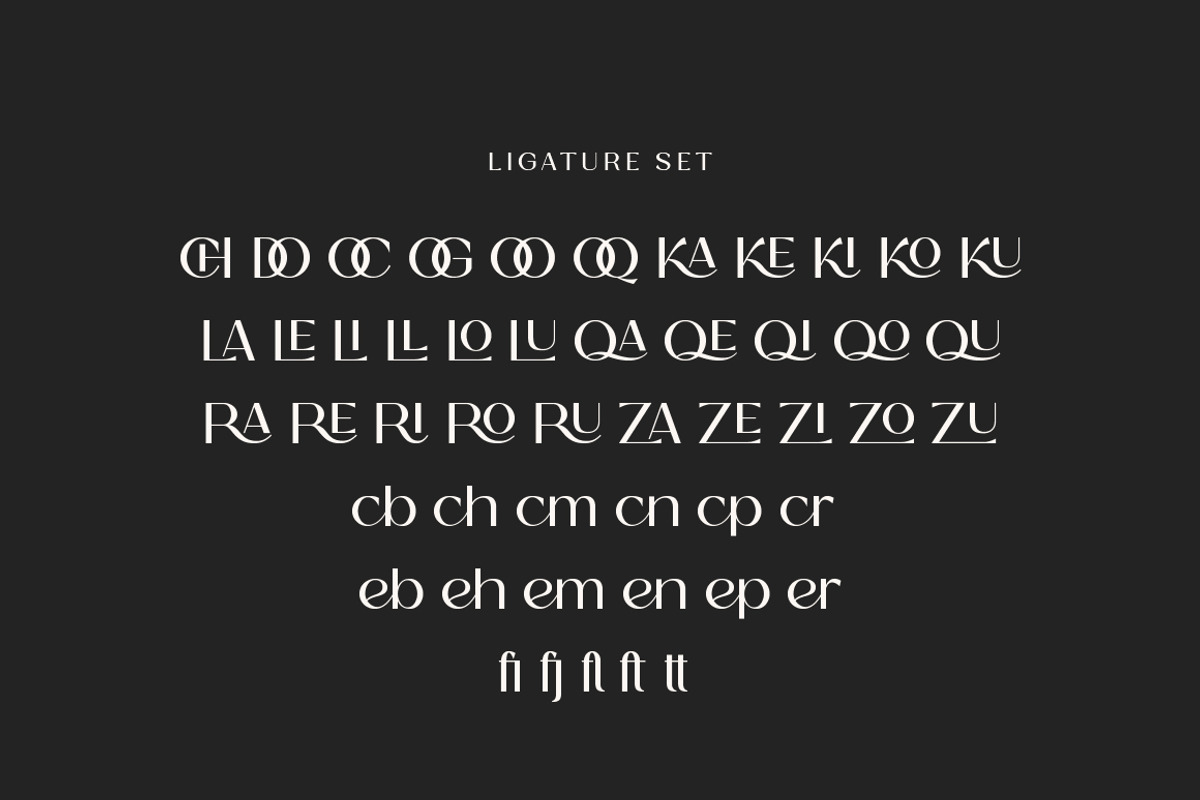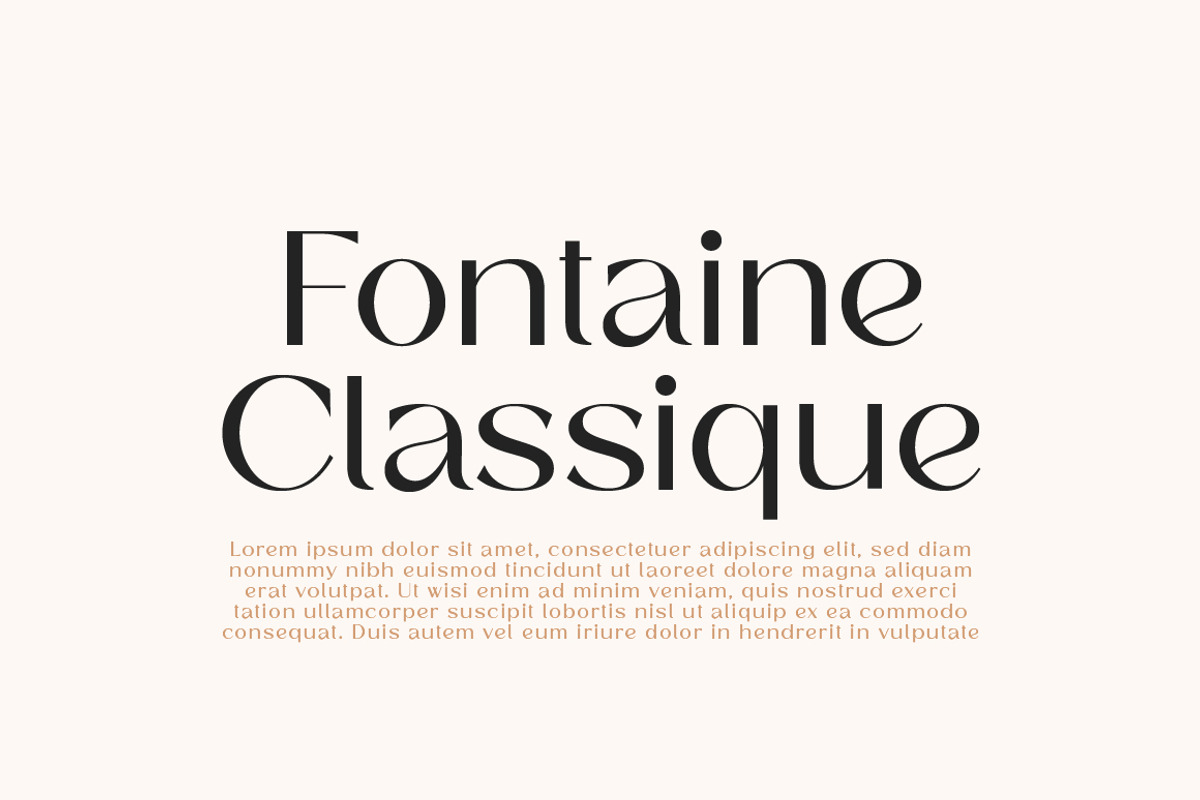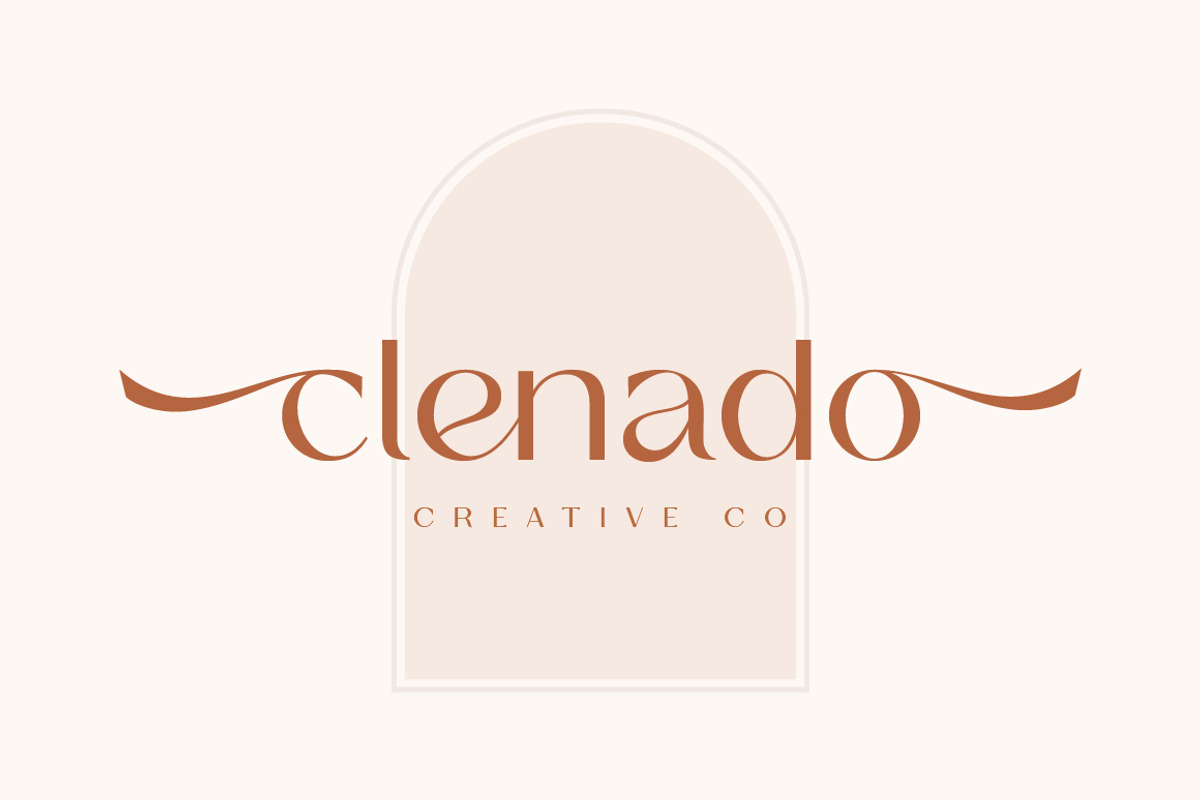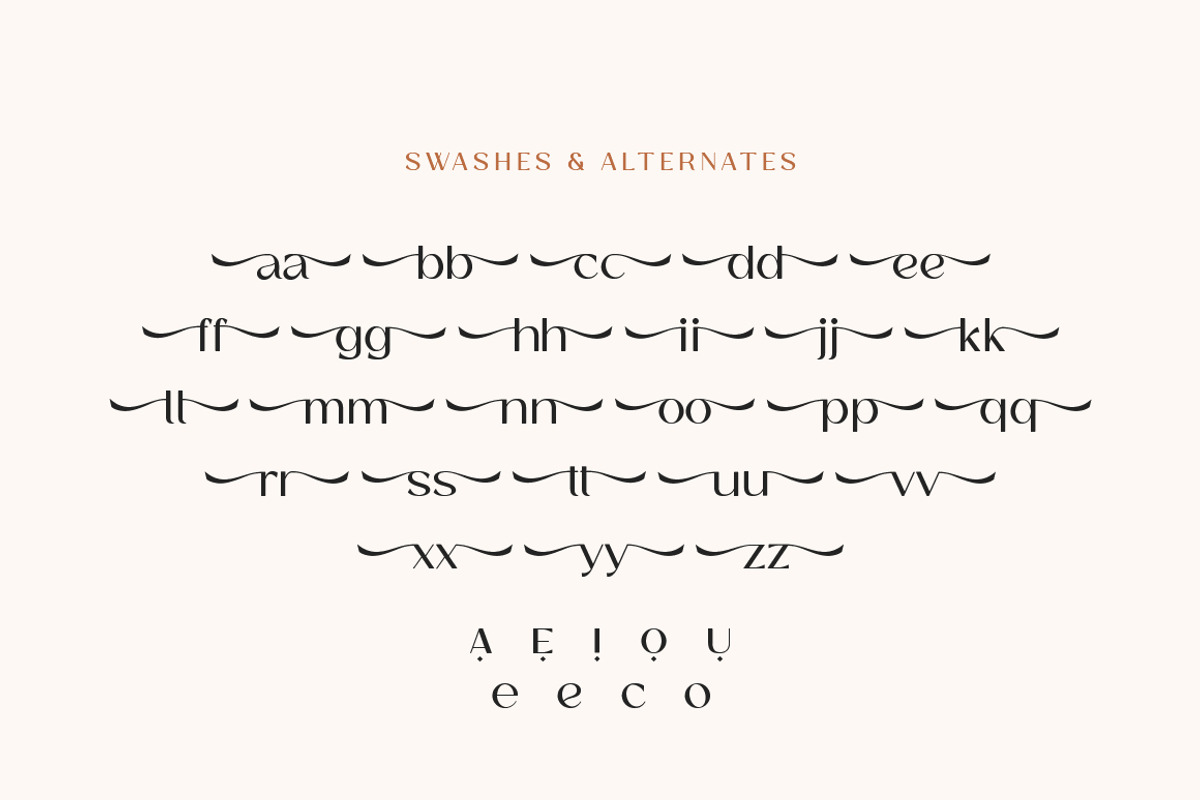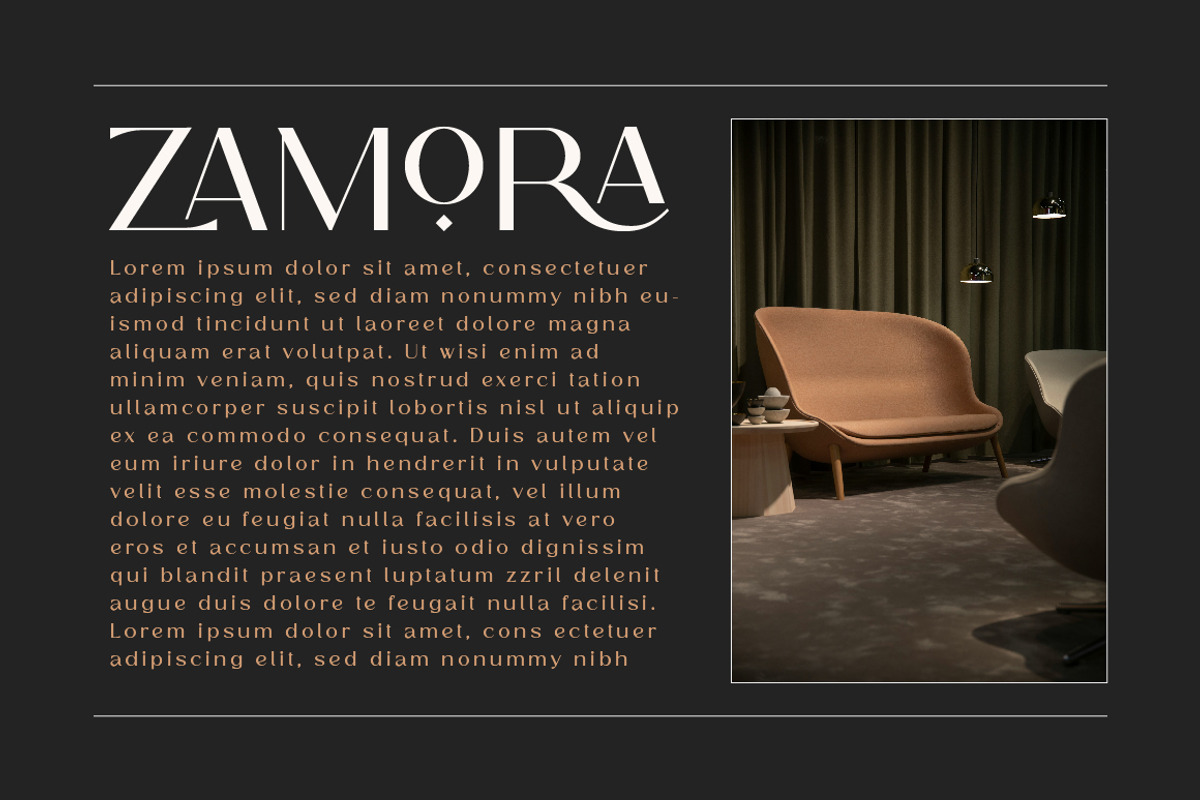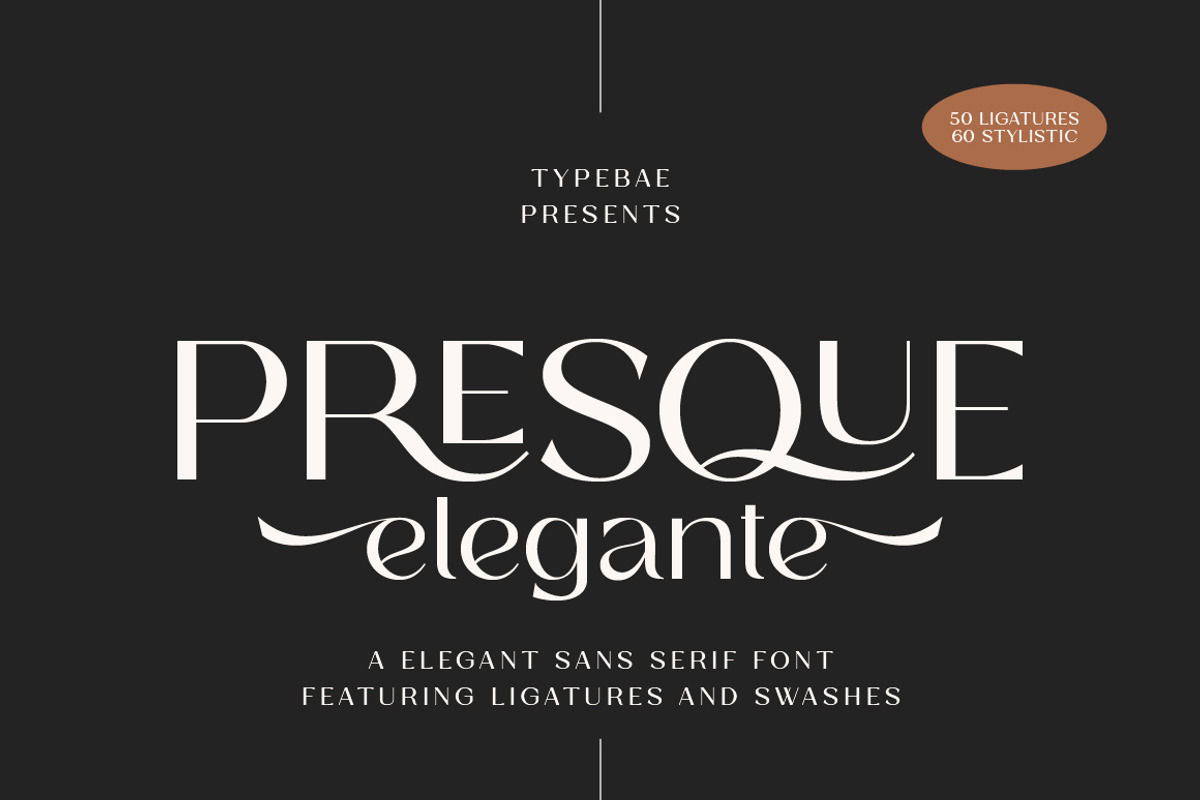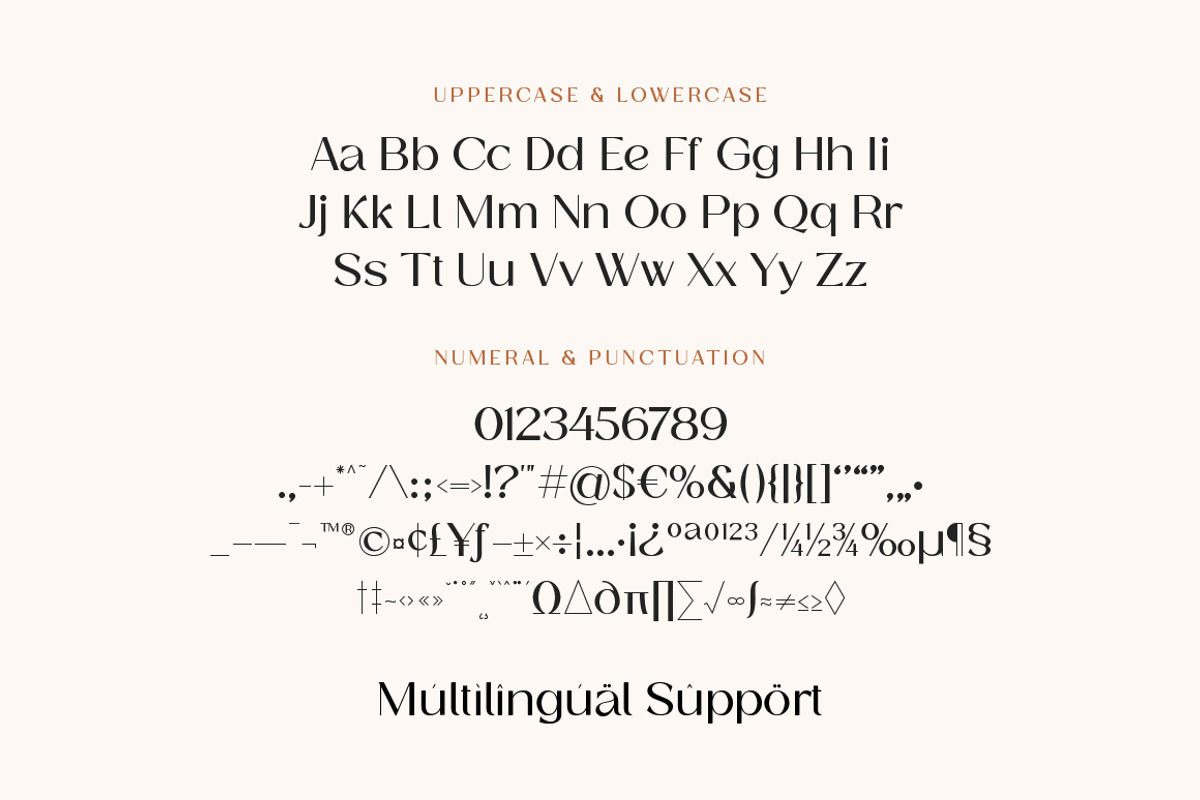
Presque Elegante - Ligature Font
Introducing Presque Elegante, a sophisticated and stylish sans serif font designed to elevate your creative projects. Featuring 50 ligatures and 60 stylistic alternates, this typeface offers endless possibilities to craft unique and luxurious typography.
- Uppercase, Lowercase, Numerals & Punctuation
- Ligatures, Swashes & Stylistic Alternates